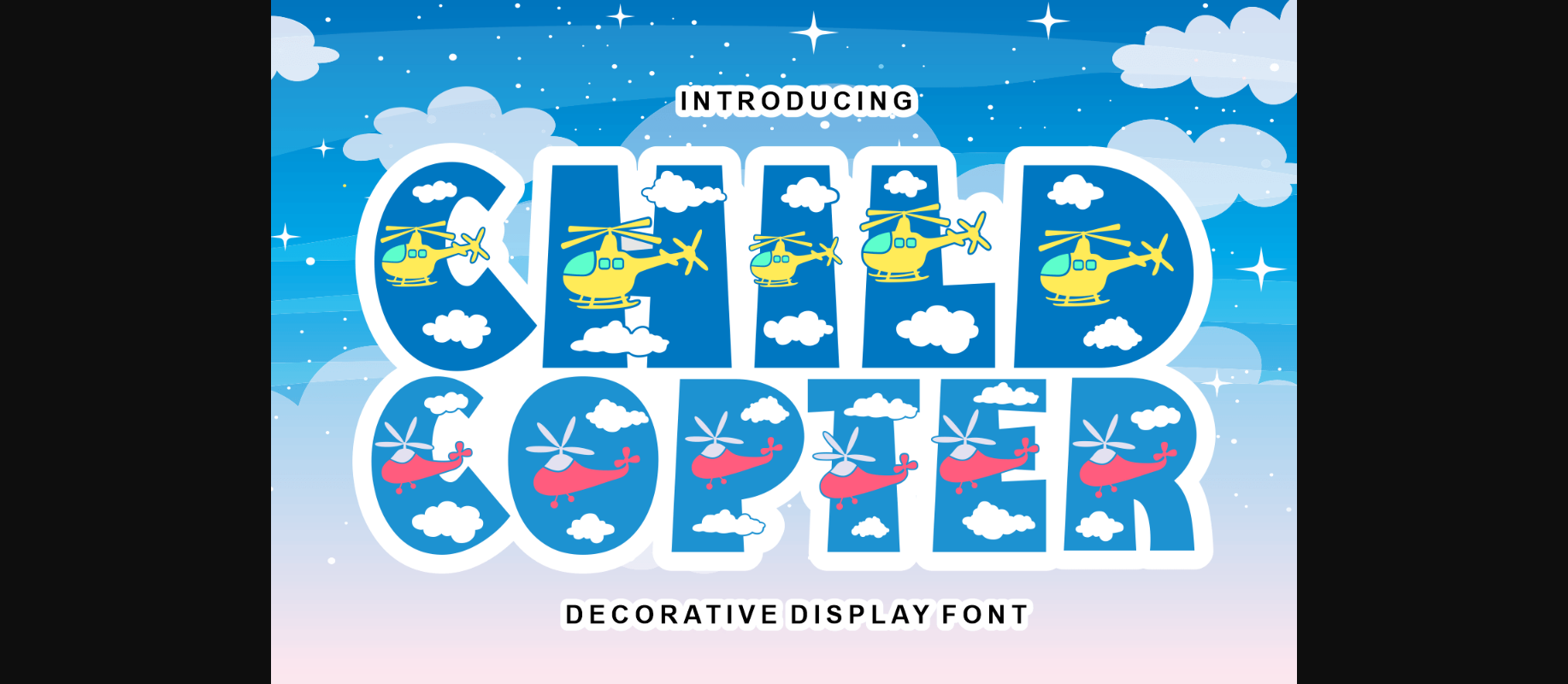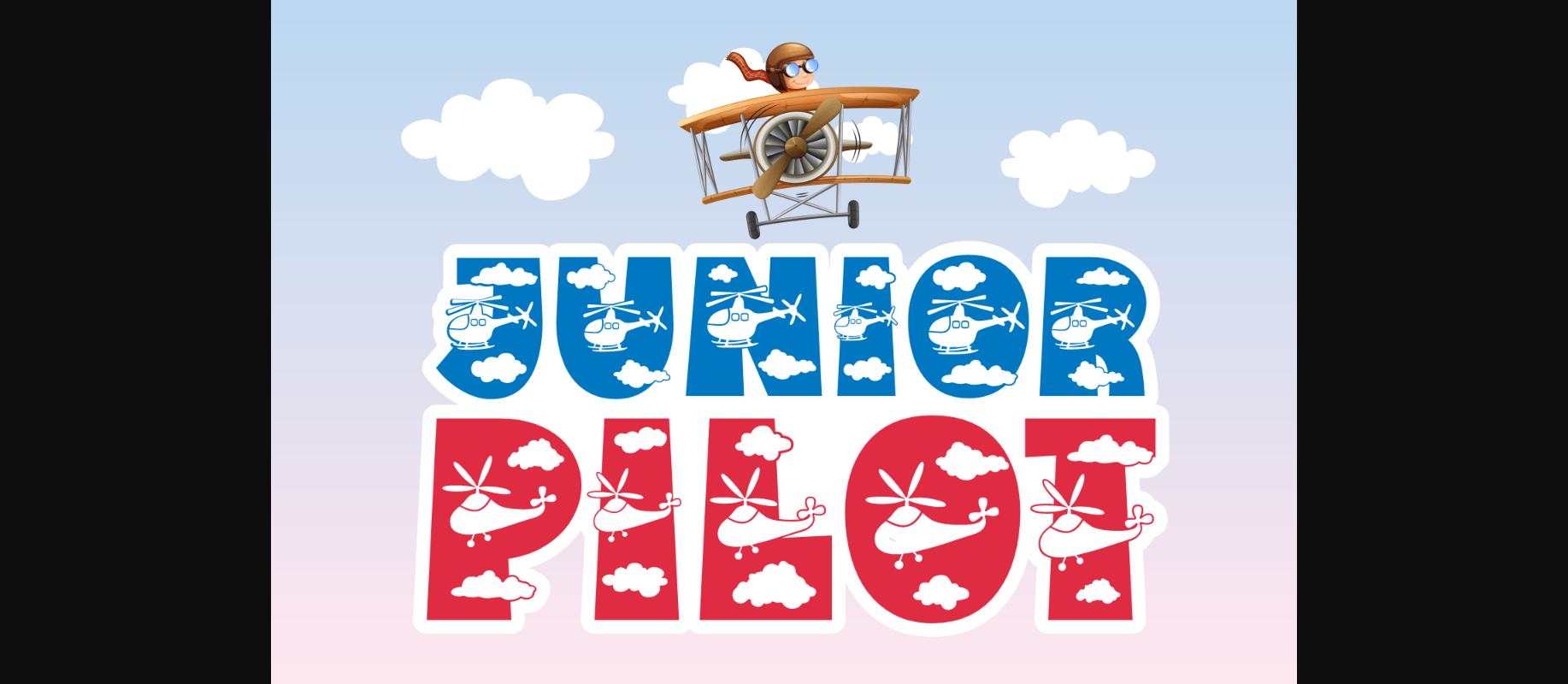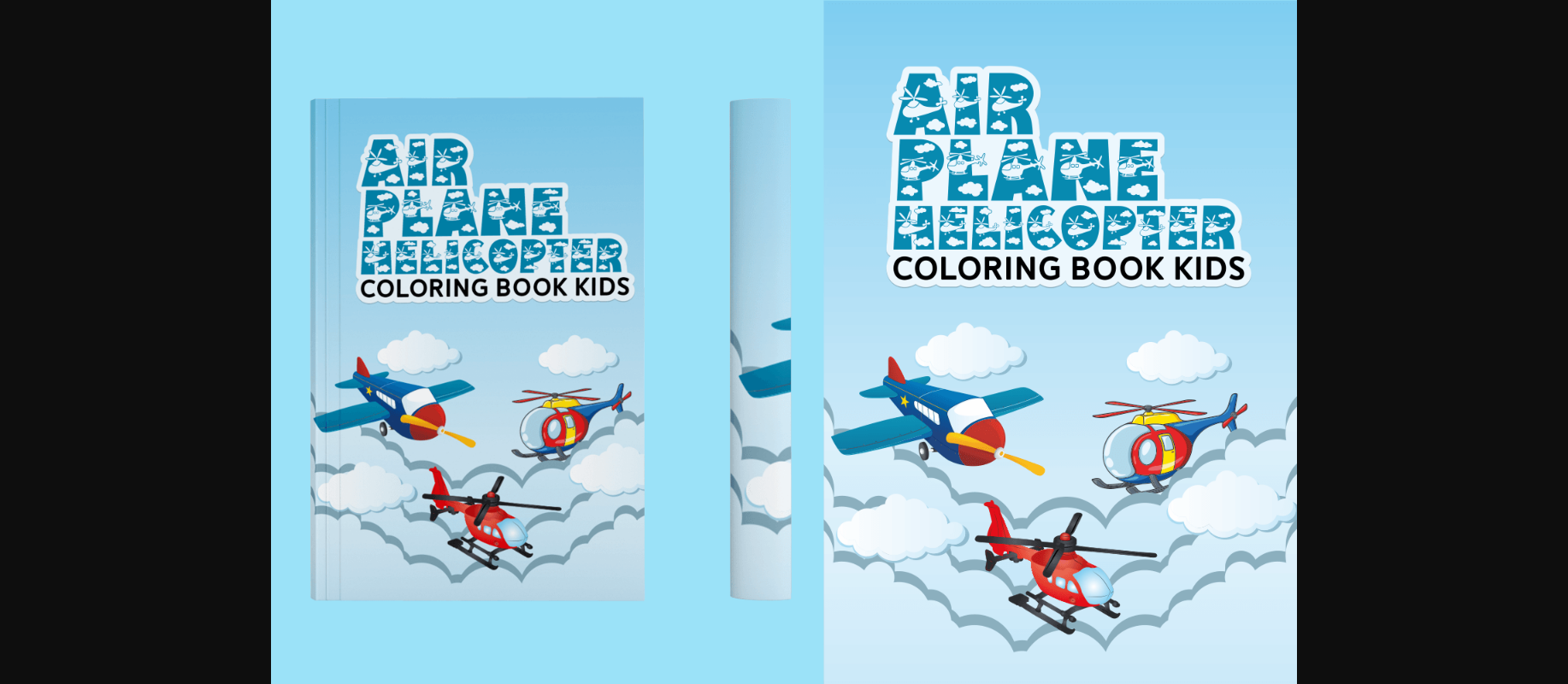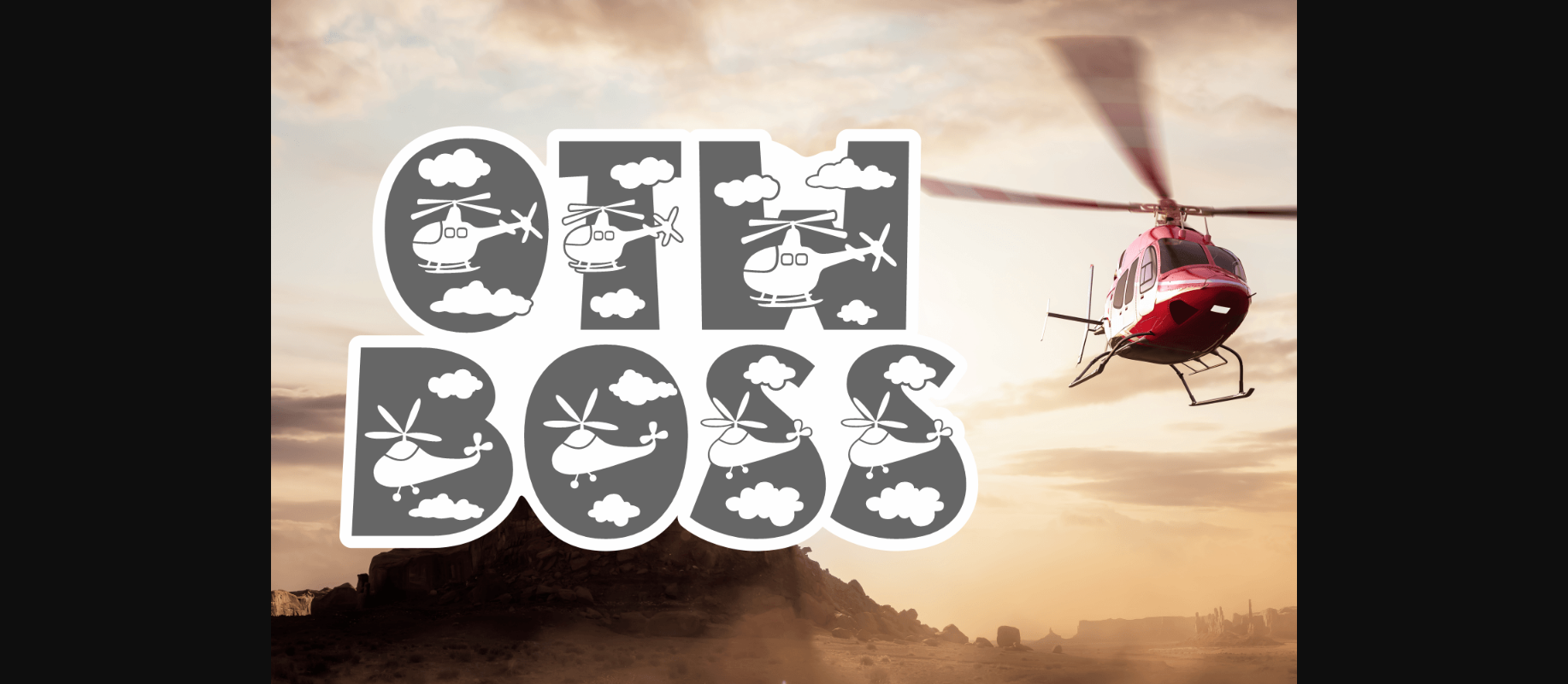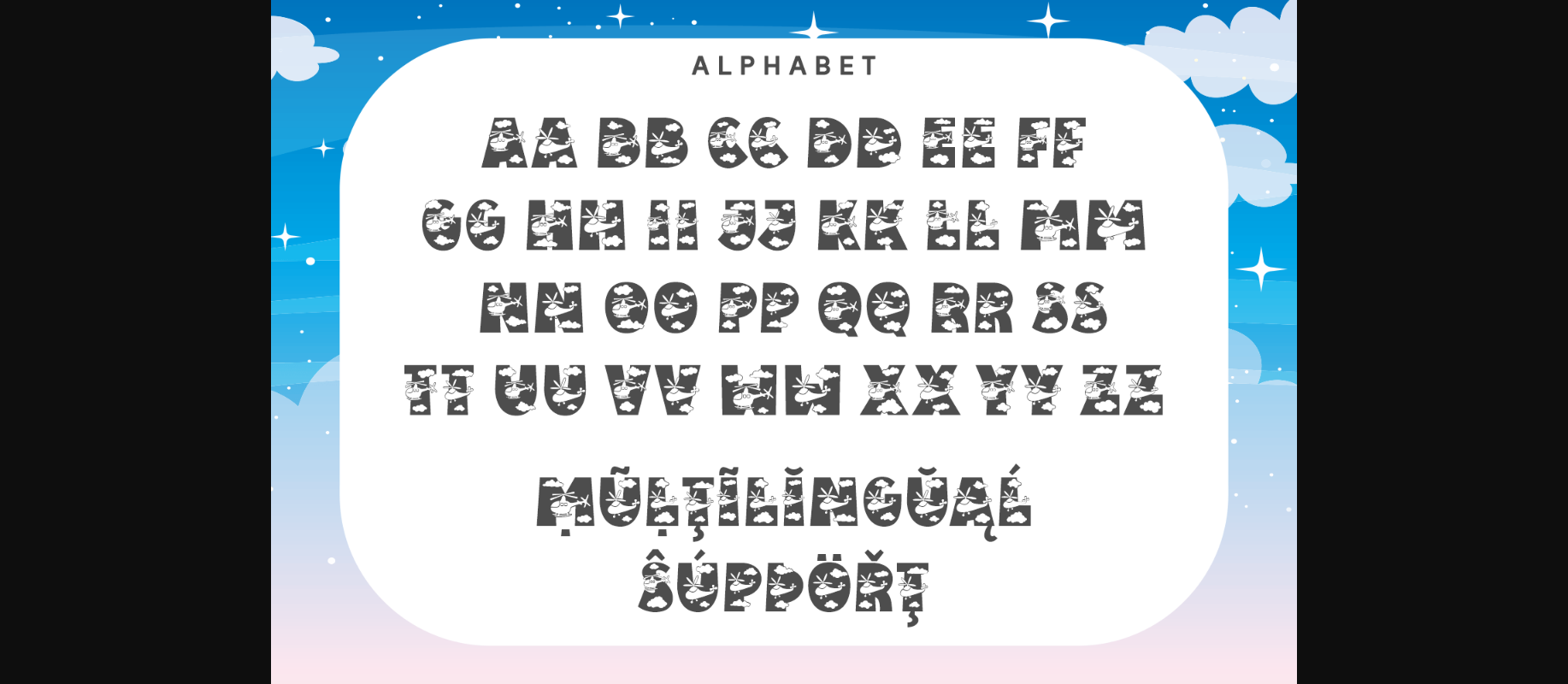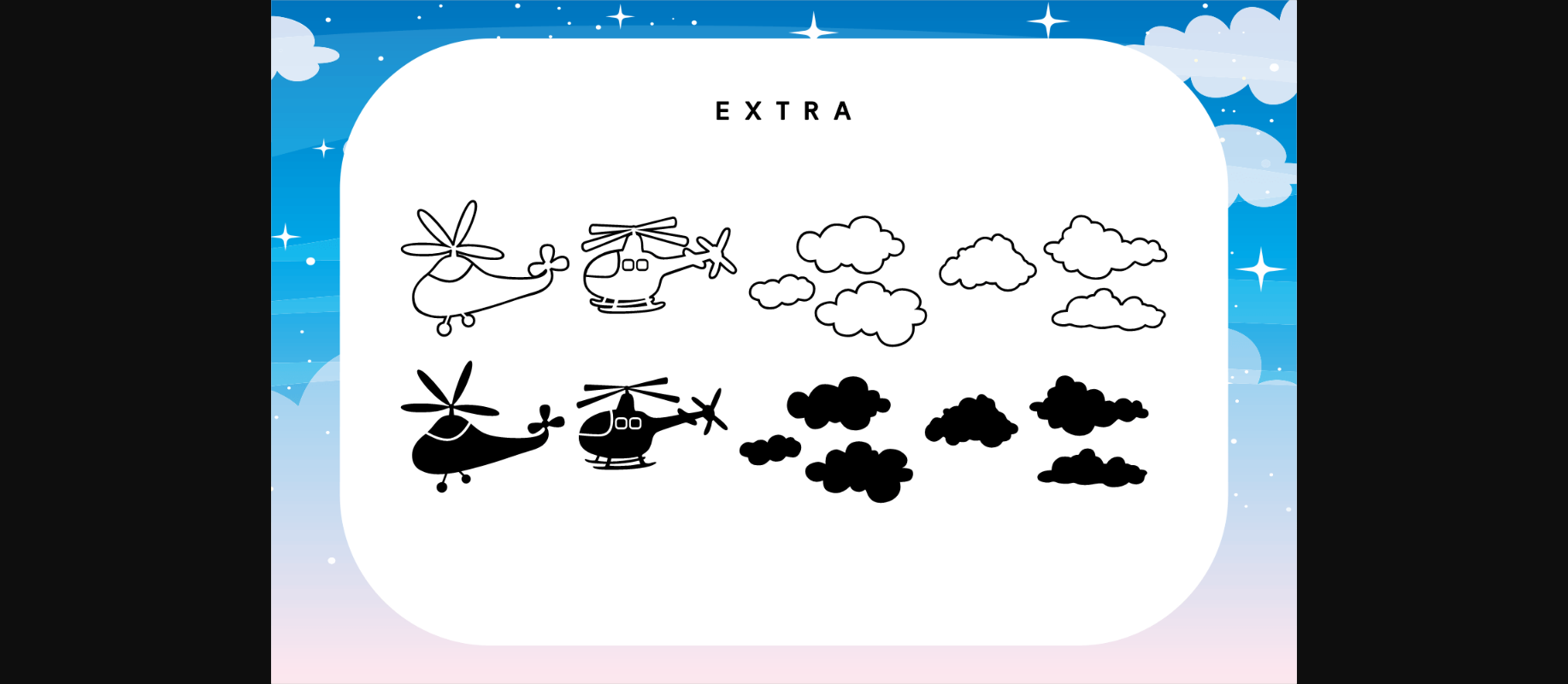
About Child Copter Font
Child Copter is a fun and cheerful decorative font. The characters feature cute helicopters and fluffy clouds, making it perfect for adding a childish feel to any creative project! It is ideal for coloring books, magazines, apparel, invitation cards, and many more.